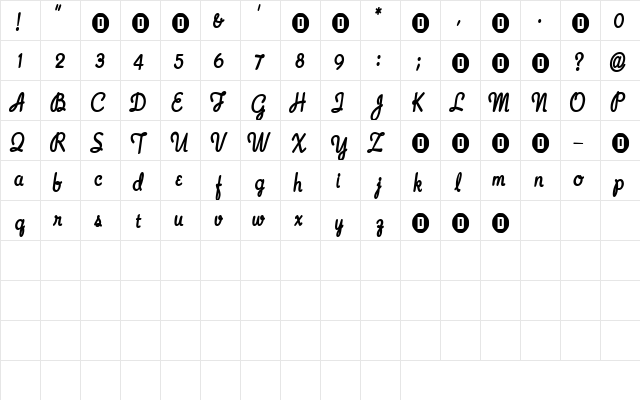
DivineIntervention Regular
Design Context for DivineIntervention Typeface
DivineIntervention is a composed and adaptable typeface that performs quietly and consistently across a wide range of design contexts.